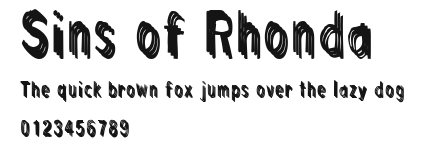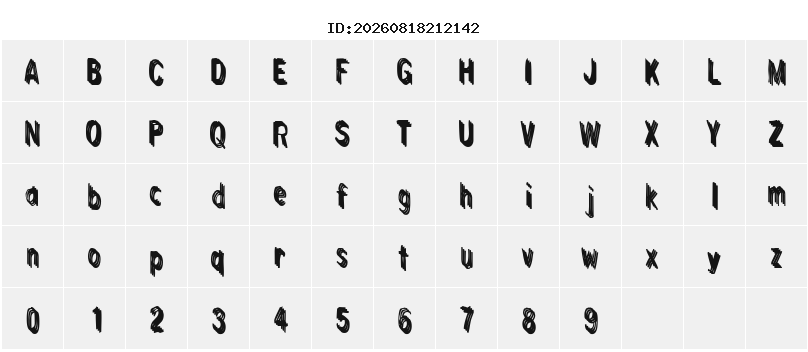
Sins of Rhonda Preview
• Font Name: Sins of Rhonda
• Full Font Name: Sins of Rhonda
About Sins of Rhonda.ttf
Sins of Rhonda.ttf is a modern, elegant sans-serif font designed for ultimate readability and visual harmony. Perfect for branding, headlines, web design, and print materials.